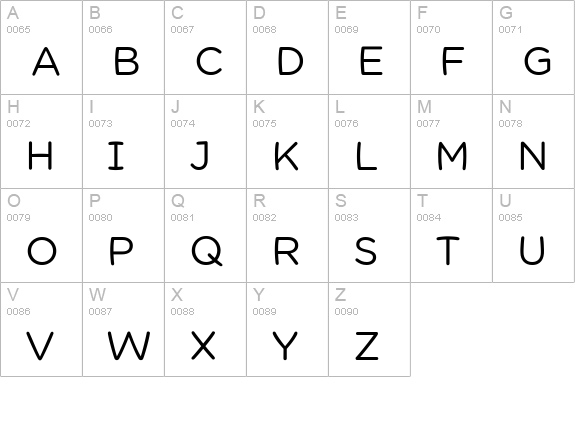
Chams font is a stunning display typeface that effortlessly combines elegance with modernity. Its sleek and sophisticated design features clean lines and subtle curves, making it perfect for a wide range of creative projects. With its versatile nature, Chams font can be used for everything from logos and branding to headlines and packaging. Its unique letterforms captivate the eye and create a memorable visual impact, ensuring that your designs stand out from the crowd. What sets Chams font apart is not just its striking aesthetics, but also its accessibility. This exceptional font is available for free download at FontsMarket.com, making it easily accessible to designers and enthusiasts alike. Whether you're a professional designer or someone who simply appreciates beautiful typography, Chams font is a must-have addition to your collection. Whether you're looking to add a touch of elegance to your wedding invitations, create a sophisticated logo for your business, or craft stunning posters for an event, Chams font has got you covered. Its versatility and timeless appeal make it a go-to choice for design projects of all kinds. So, why wait? Embrace the beauty and versatility of Chams font and let your creativity soar. Download this exceptional typeface for free at FontsMarket.com and unlock a world of possibilities for your next design endeavor.